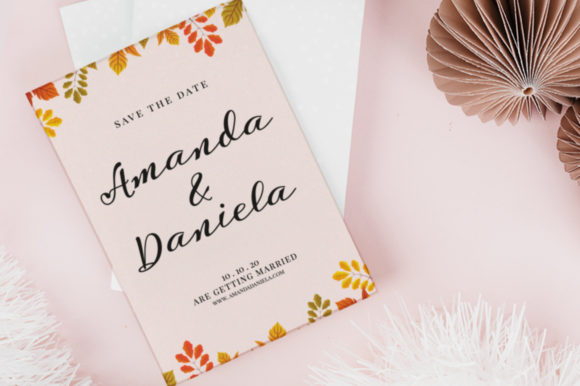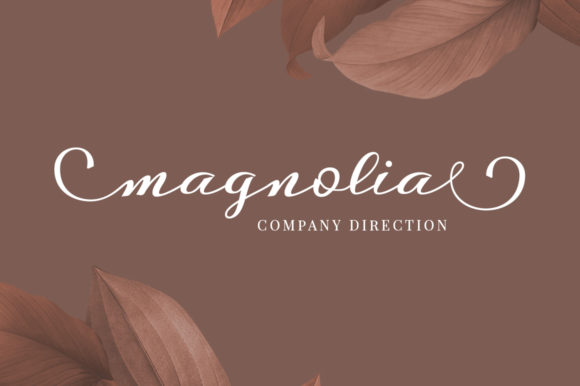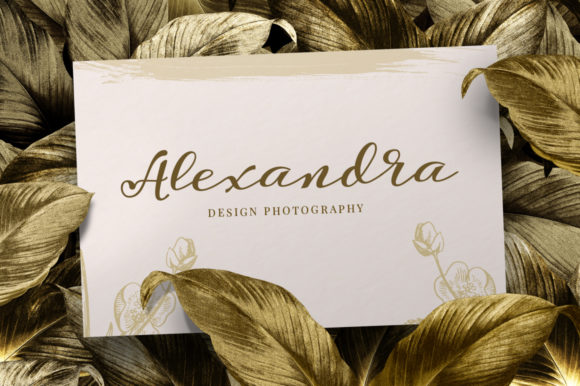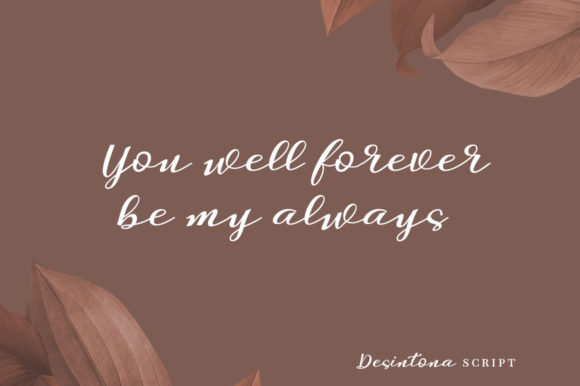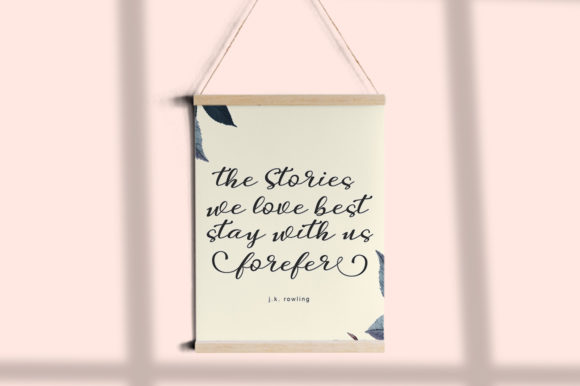
Desintona Script Font
Desintona is a contemporary and cool script with an incredibly authentic vibe. Use it to turn any design project into a standout!